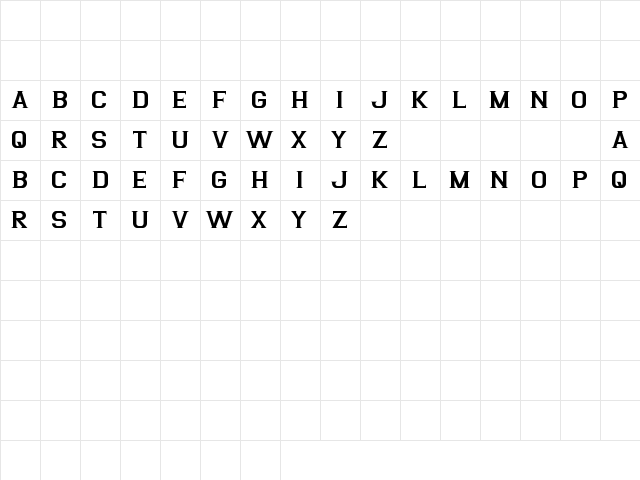
Argentina Regular
Designer: Carlos Matteoli
Design Context for Argentina
Argentina is a composed and adaptable typeface that performs quietly and consistently across a wide range of design contexts.